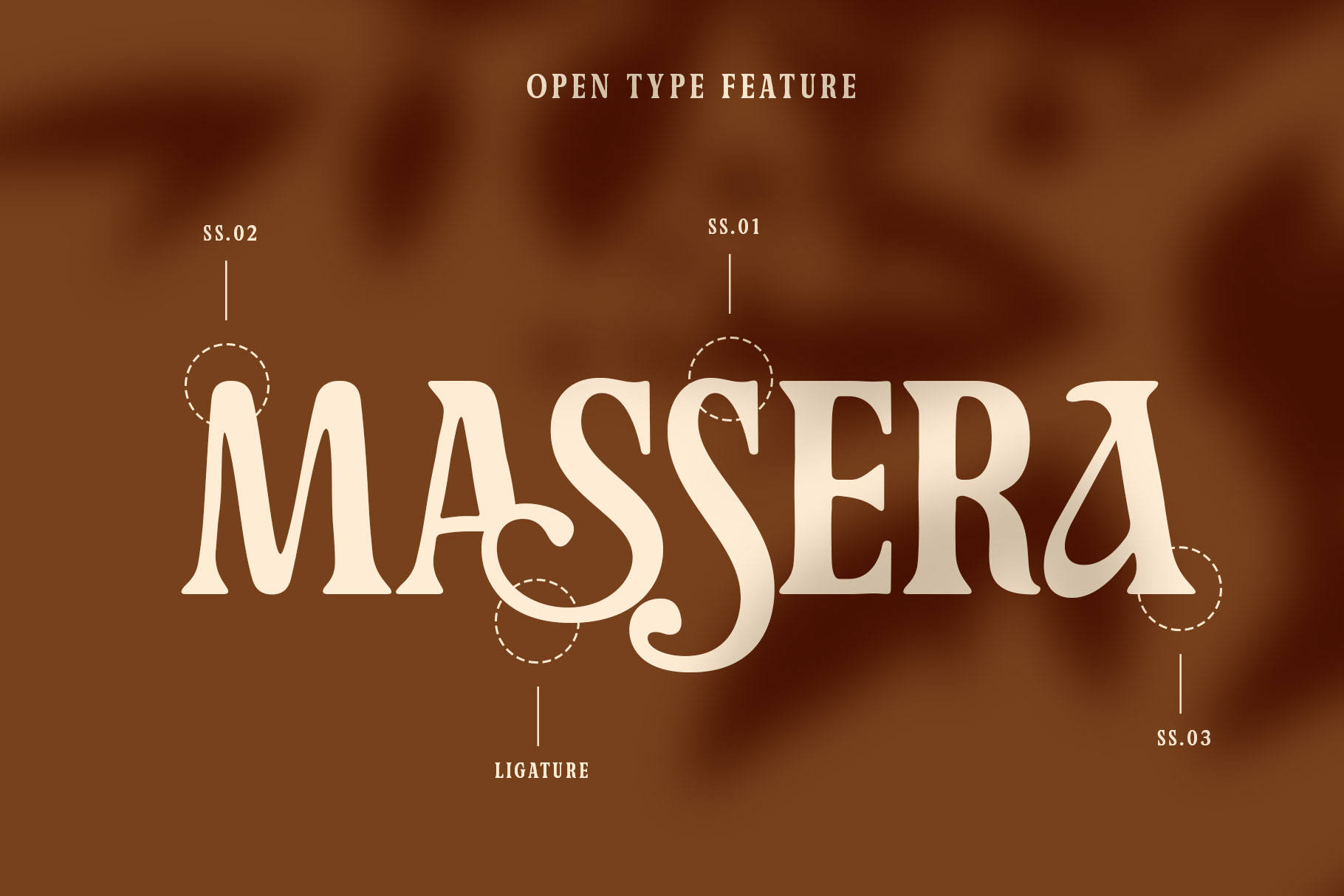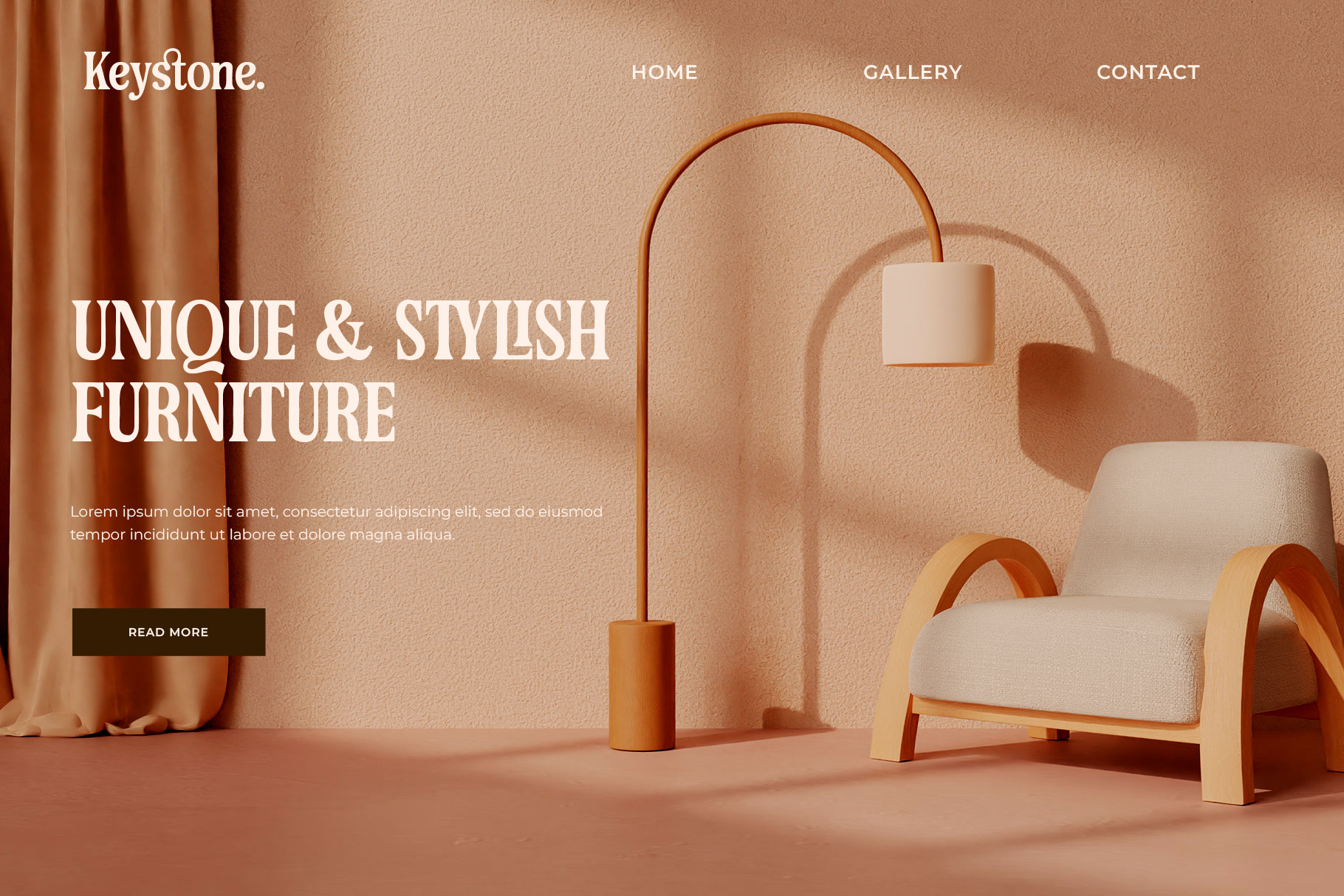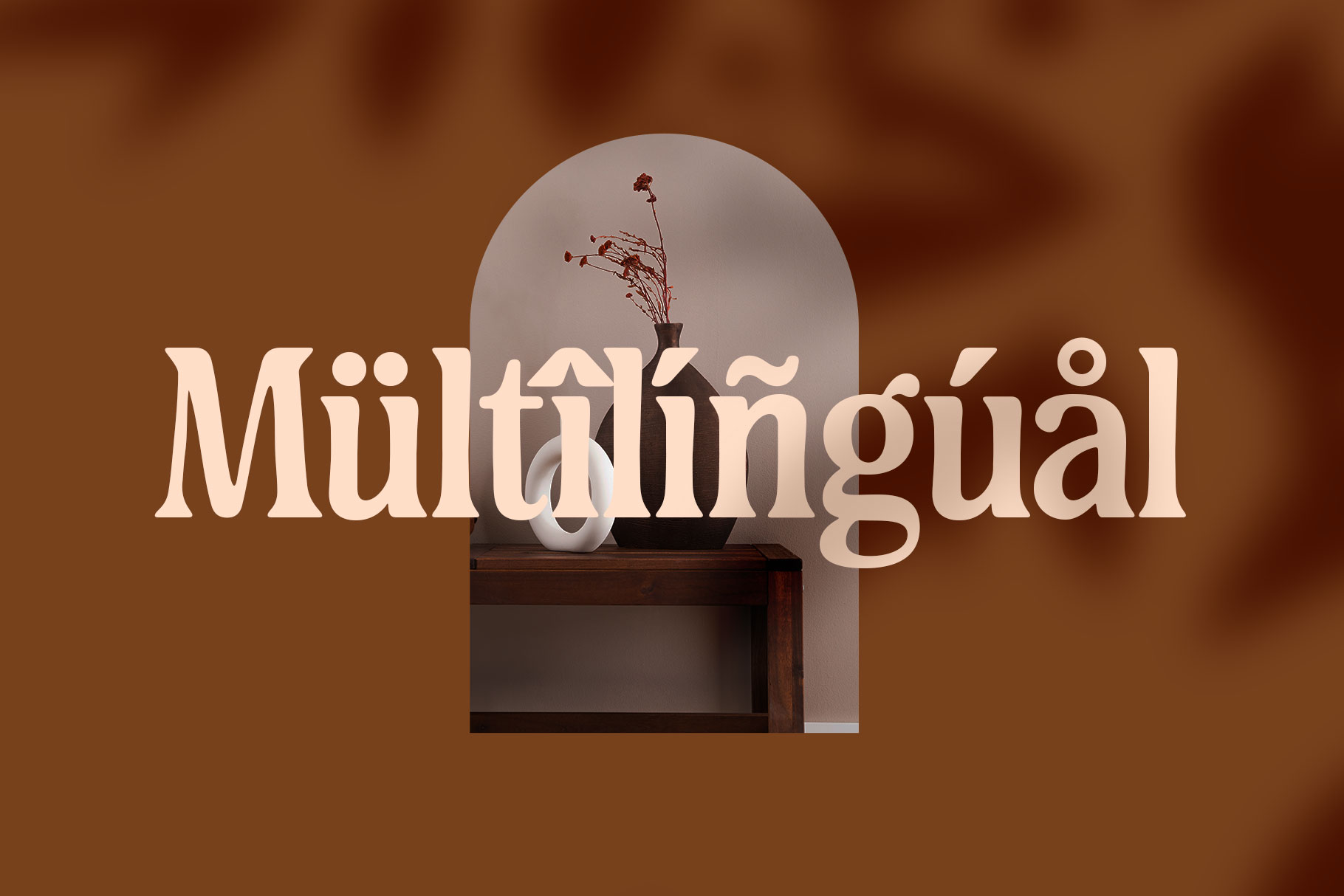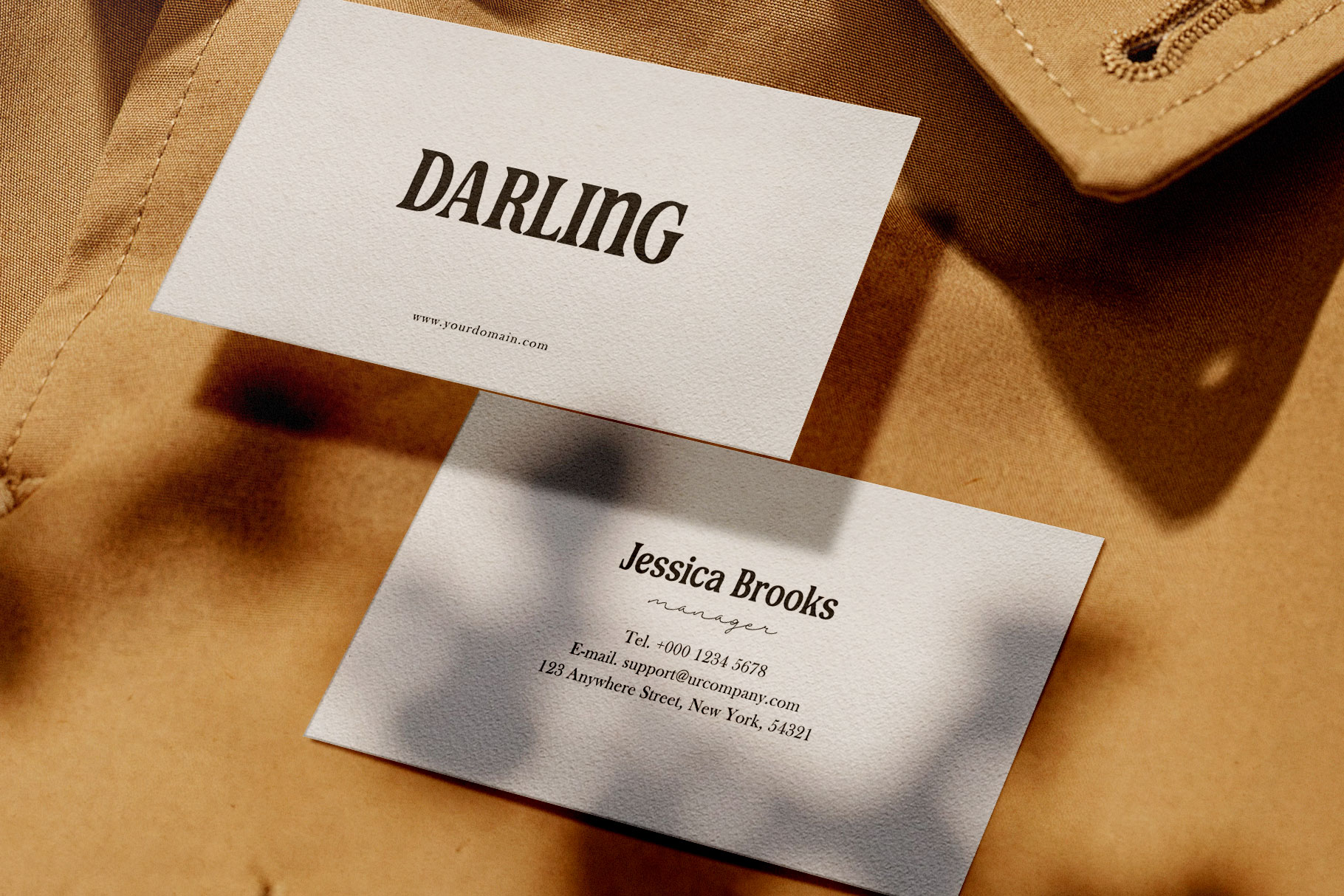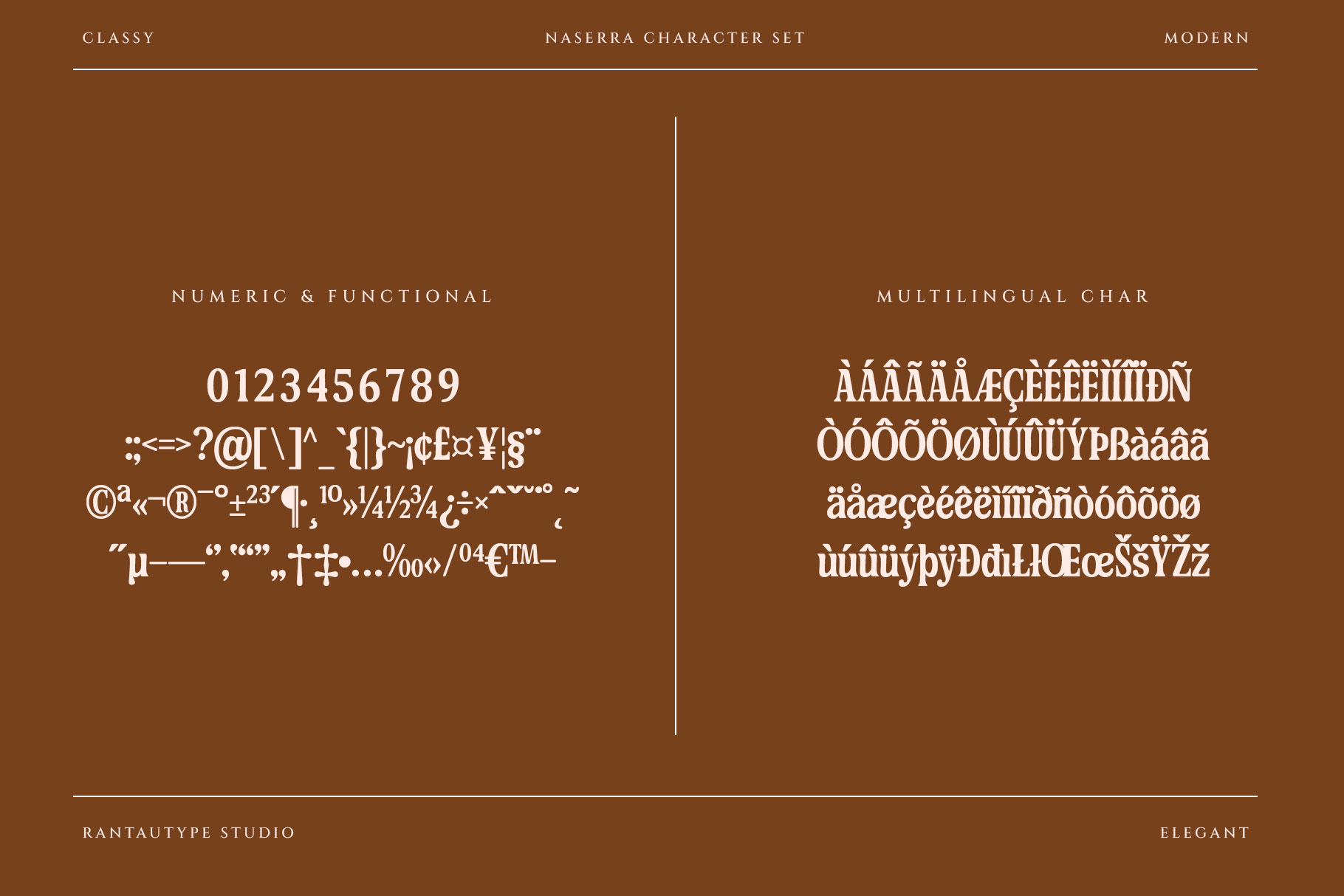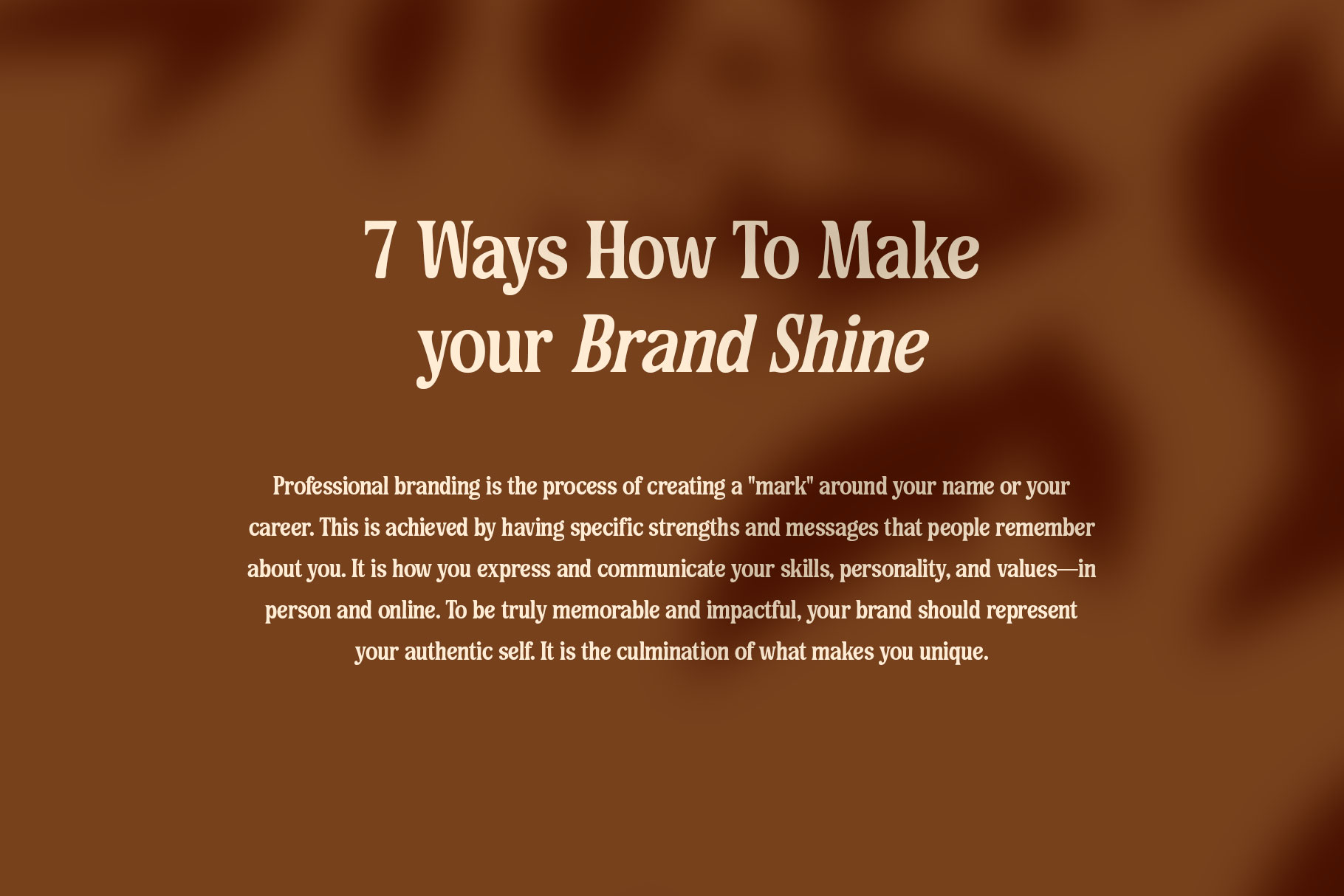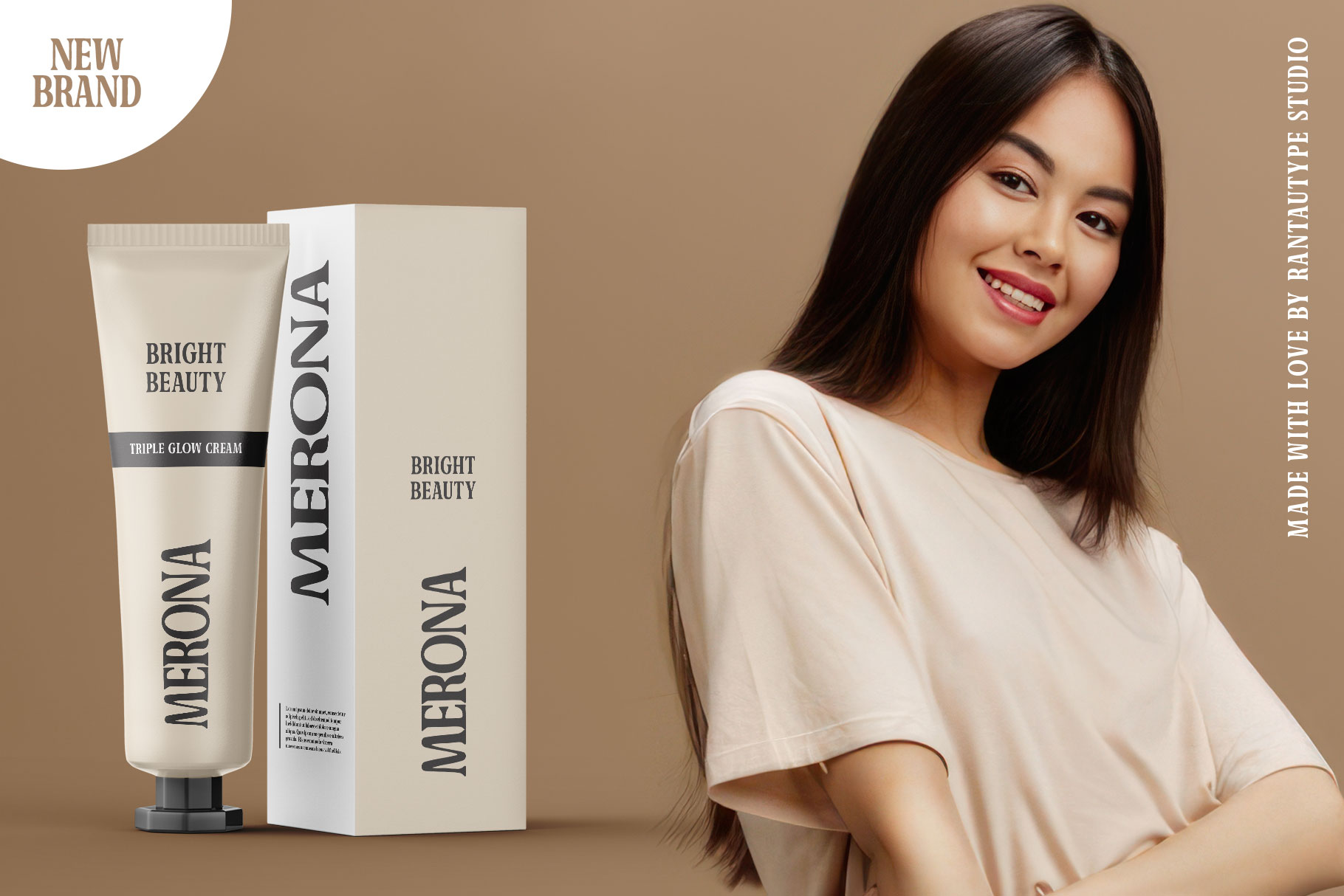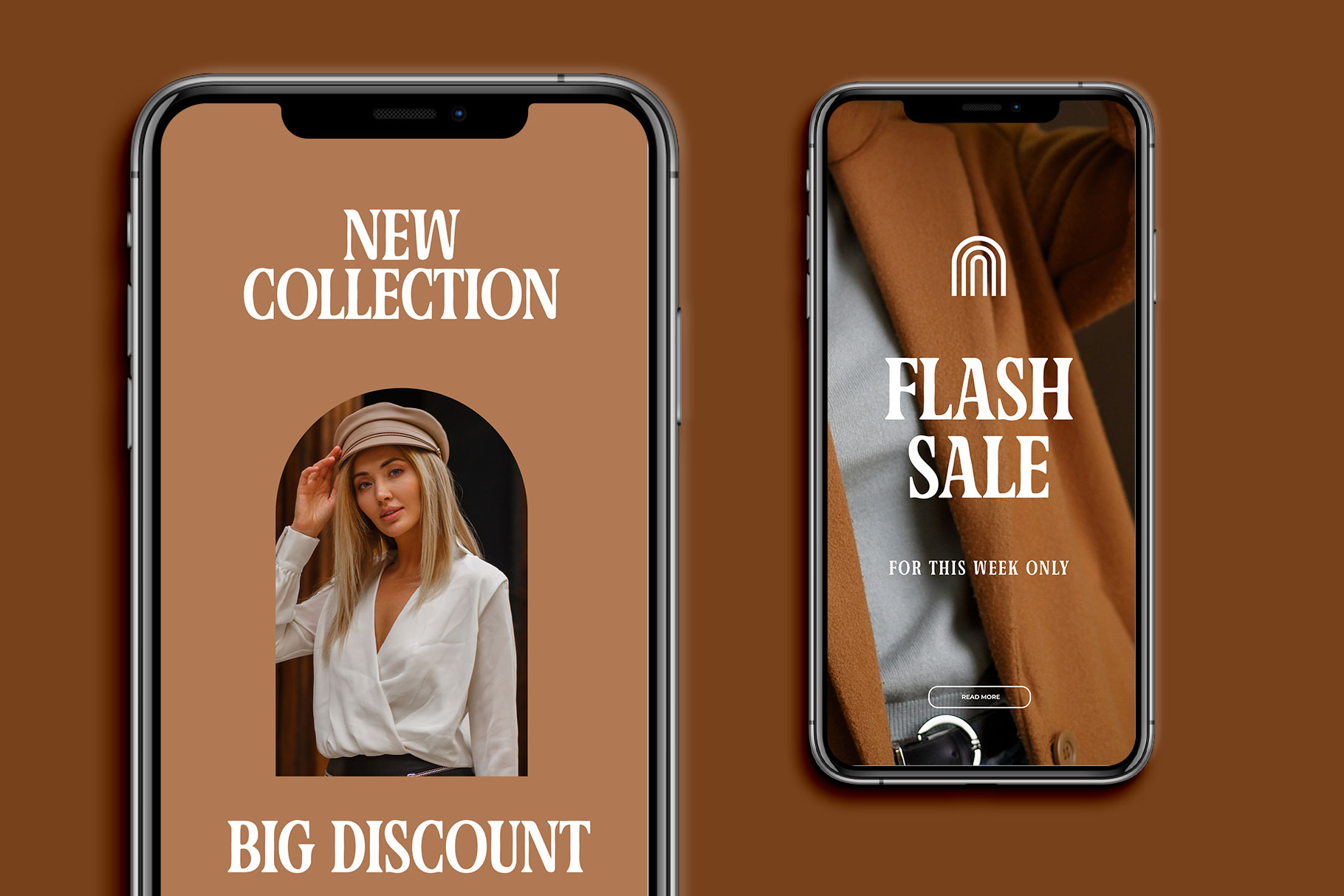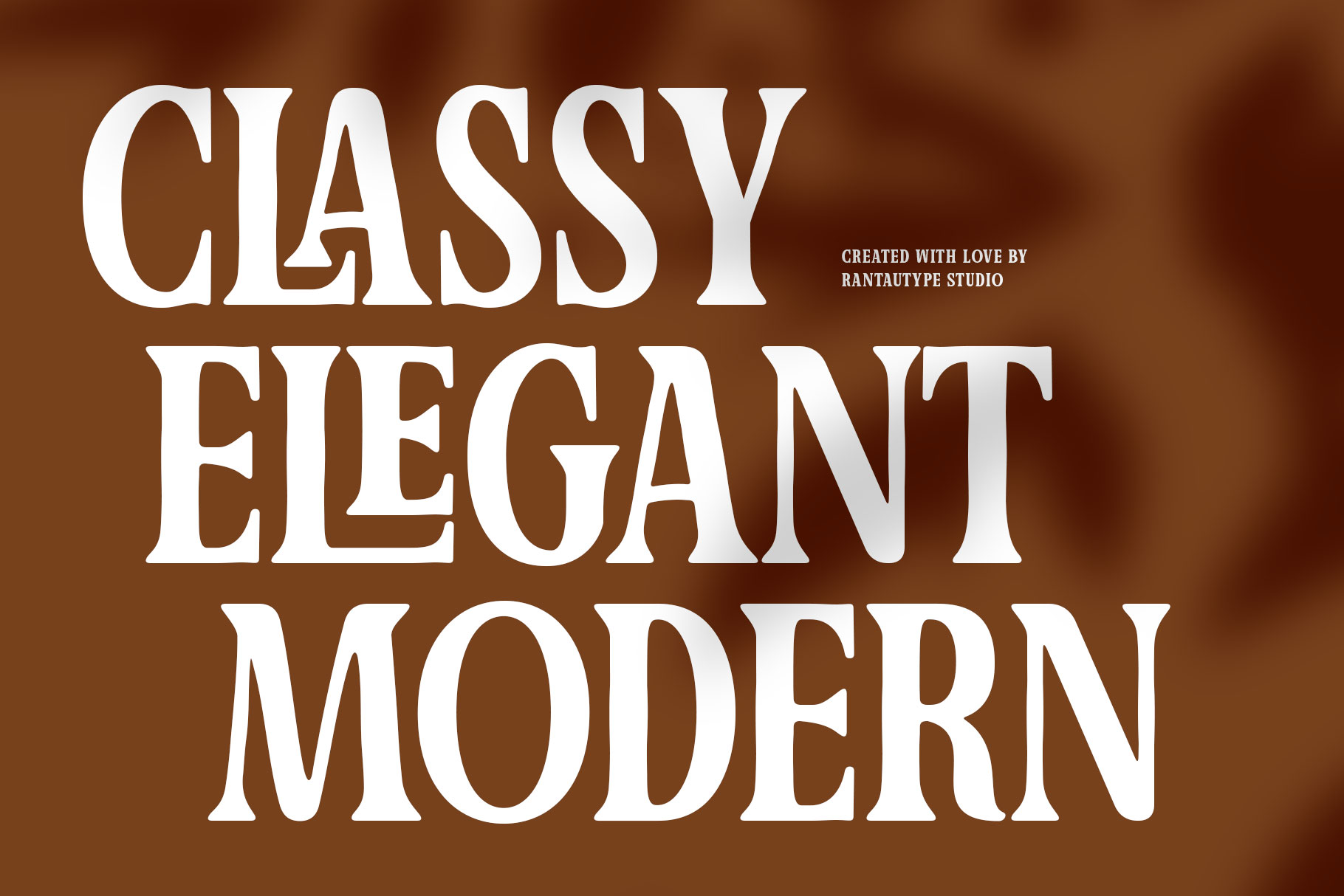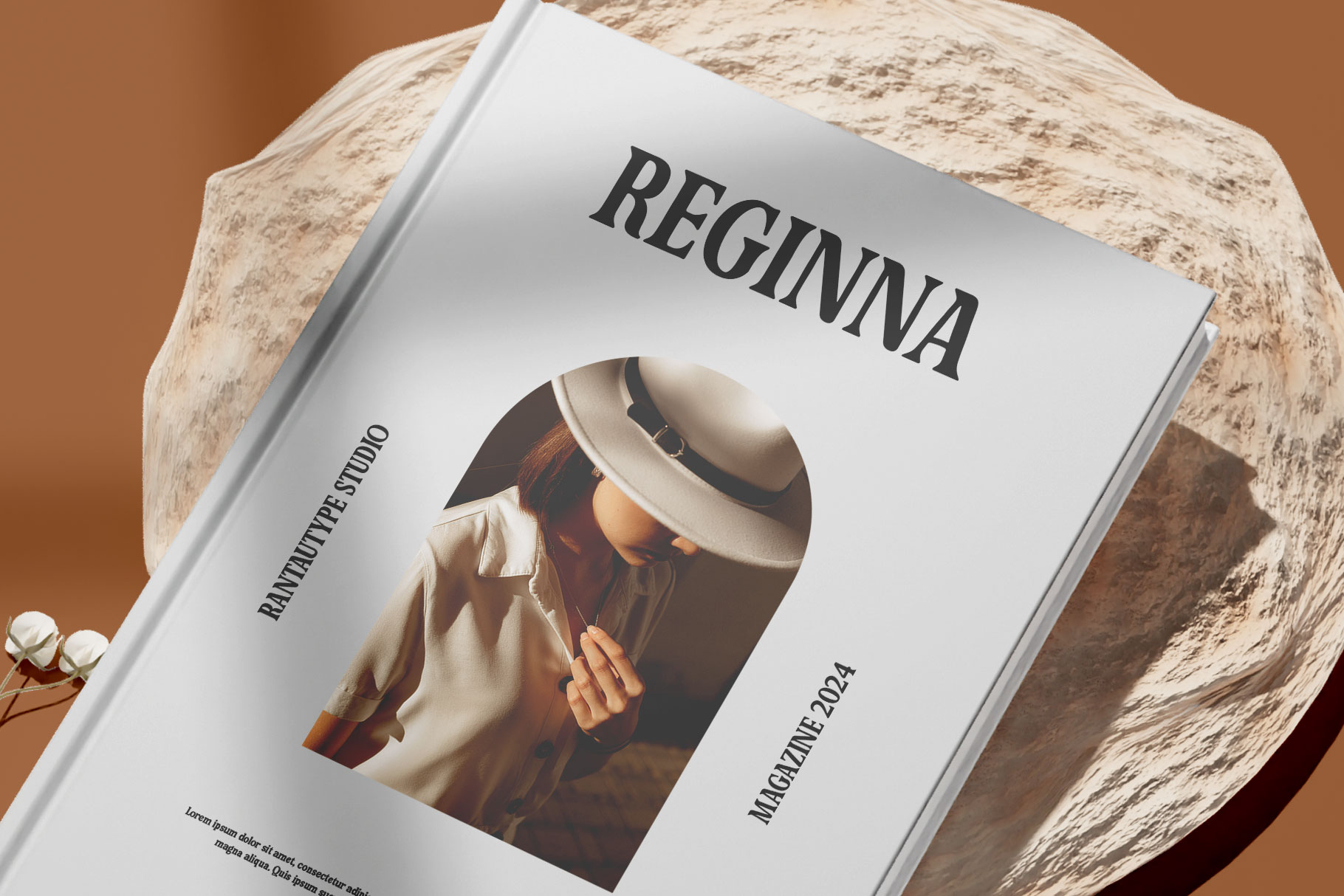
Naserra Modern Serif Font
Naserra is a modern display font with soft curve and versatile. We love how alternate A, M, N form it so classy and unique.
Naserra separate in reguler and italic, is a perfectly choice for any creative endeavor, chic, lifestyle design such as logos, advertisements, watermark on photography, stationery, branding project, display and magazine, invitation, corporate brand, product design, label, business project and many other project.